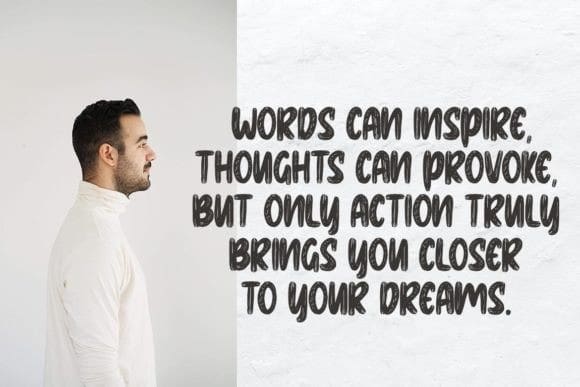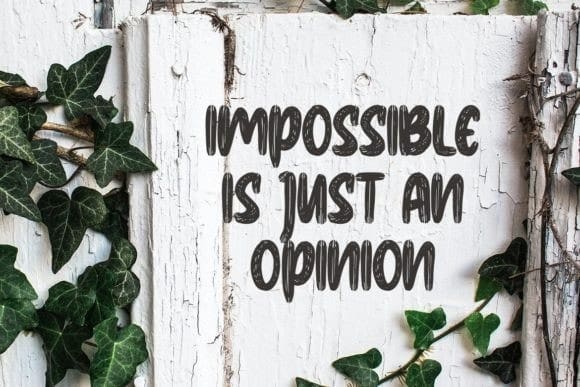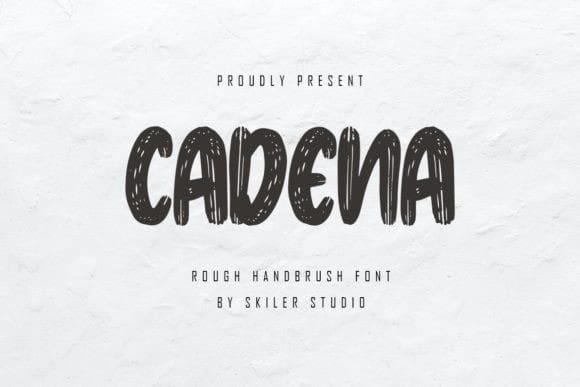
Cadena Brush Font
Cadena Brush Font is a textured rough brush display font with paint scratches or original brush. This textured display font has original strokes and is suitable for film or commercial needs.